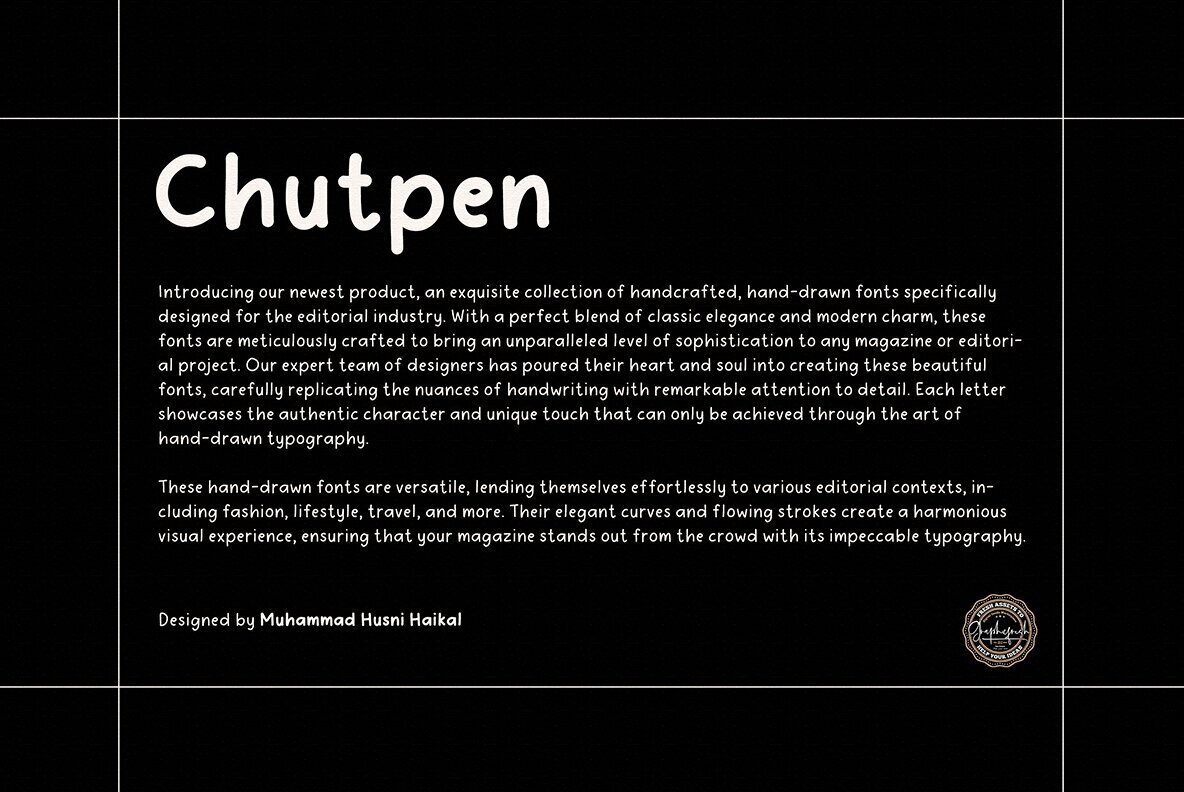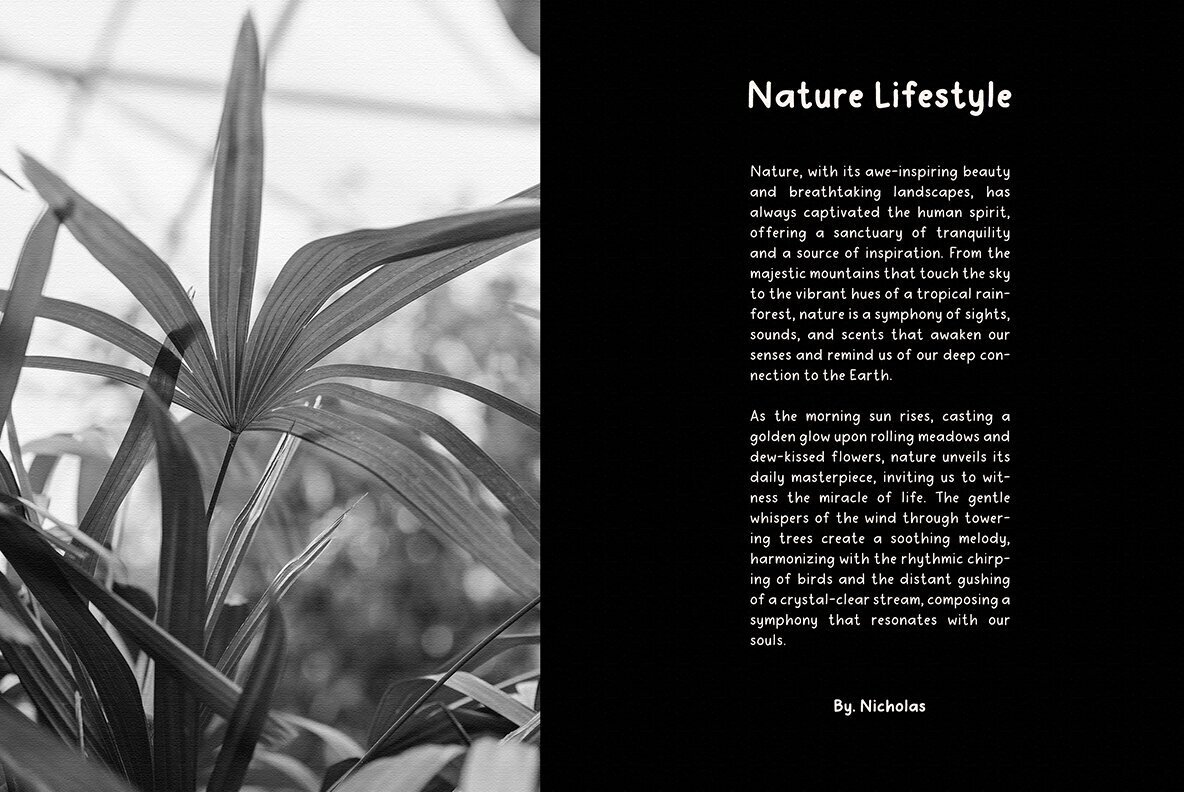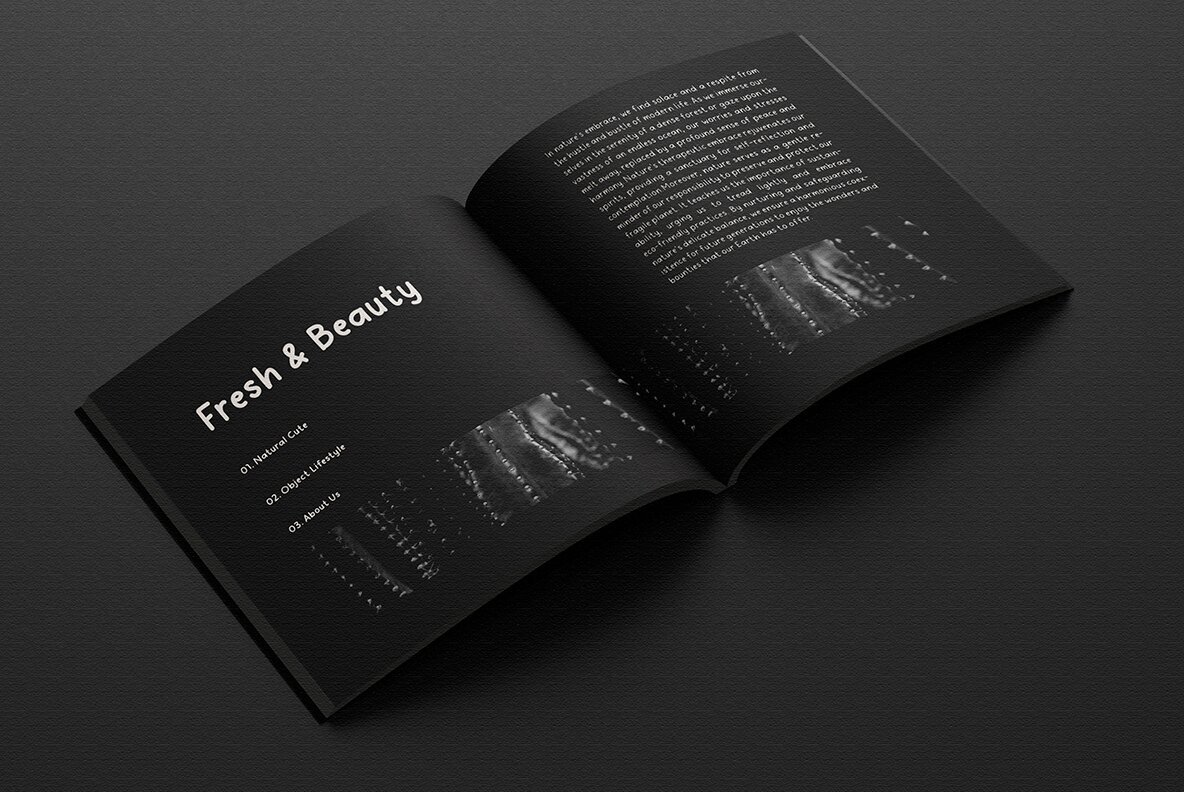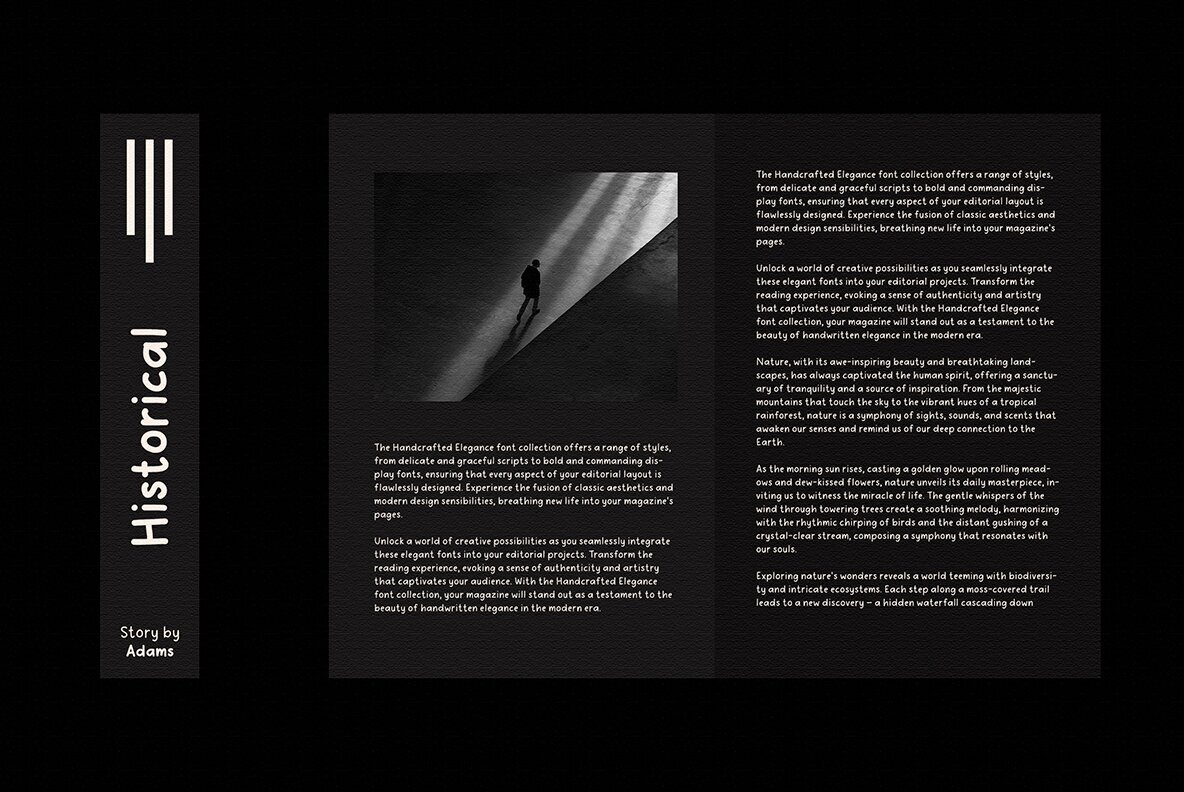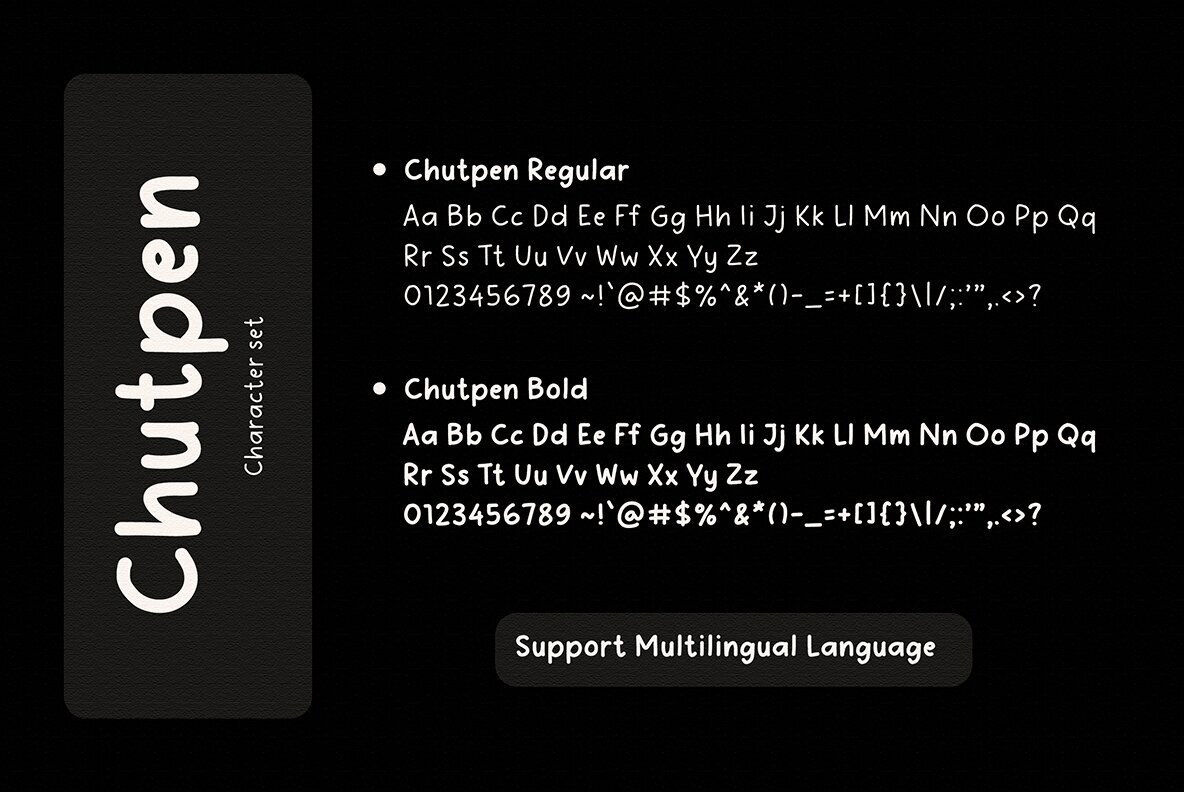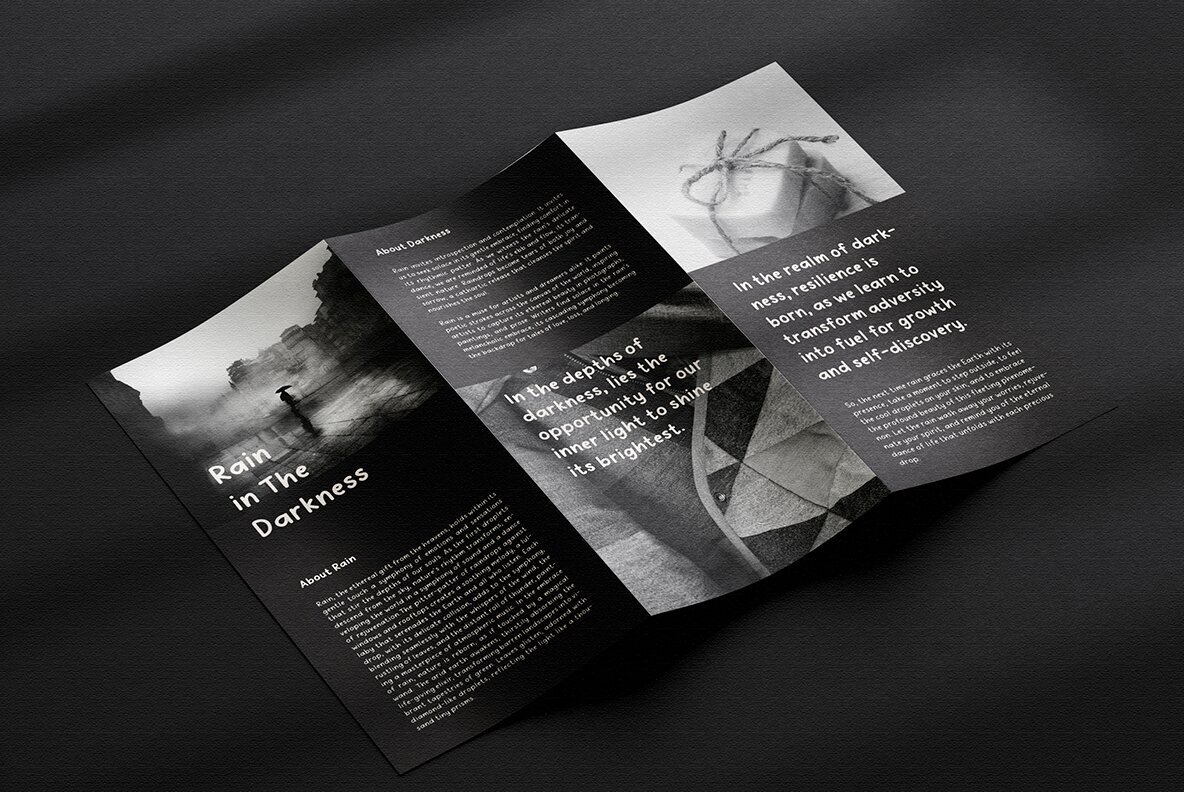
Chutpen Font
Chutpen Regular
Chutpen Bold
Introducing our Handwriting Font Editorial: a classic yet modern and elegant typeface inspired by the charm of handdrawn letters. This versatile font is perfect for adding a touch of sophistication to your magazine layouts. With its meticulously crafted curves and stylish strokes, our Handwriting Font Editorial will elevate your designs and captivate your readers, making it an essential tool for any editorial project. Embrace the artistry of handwritten fonts and bring a timeless appeal to your publications with our Font.